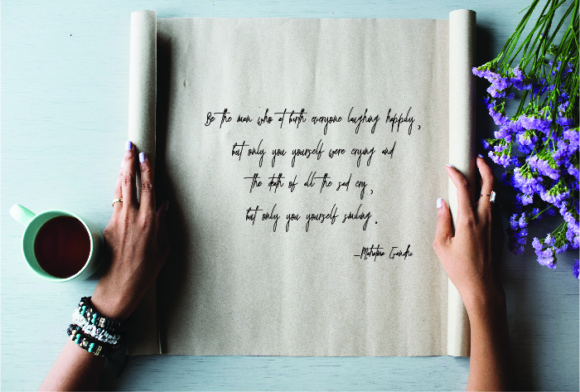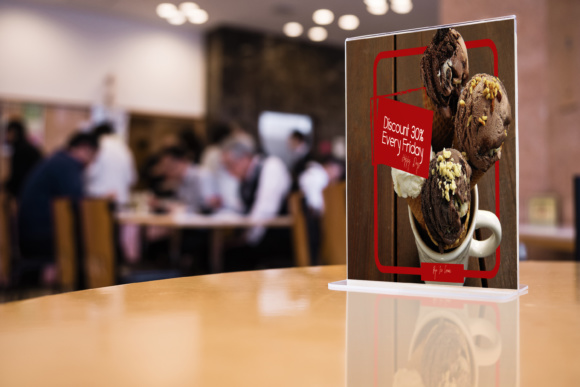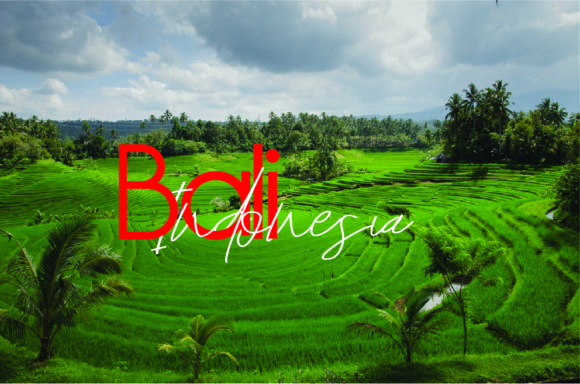
Futusicia Duo Font: Elevate Your Designs with this Stunning Font Combination
In the world of typography, a font duo can make or break a design. A well-curated combination of fonts can elevate your project from ordinary to extraordinary. Introducing the Futusicia Duo, a match made in heaven that pairs the elegance of Futusicia Script with the modernity of Futusicia Sans Serif. In this article, we’ll dive into the world of Futusicia Duo, exploring its features, benefits, and uses, perfect for designers and crafters looking to take their designs to the next level.
Meet the Futusicia Duo
The Futusicia Duo is a stunning font duo combining Futusicia Script, a stunning handwritten script, and Futusicia Sans Serif, a perfectly matching sans serif. This dynamic duo is designed to work in harmony, providing a cohesive look that’s perfect for a wide range of design projects, from branding and advertising to packaging and digital media.
Futusicia Script: The Elegant Handwritten Script
Futusicia Script is a beautiful, handwritten script font that’s perfect for adding a touch of elegance to your designs. With its flowing lines and cursive connections, this font exudes sophistication and refinement. Its elegant appearance makes it ideal for use in:
- Wedding and event invitations
Futusicia Sans Serif: The Perfectly Matching Font
Futusicia Sans Serif is a clean, modern sans serif font that’s designed to complement Futusicia Script perfectly. Its simple, geometric lines provide a beautiful contrast to the elegance of the script font, creating a harmonious balance that’s perfect for:
- Headings and titles
- Body text and descriptions
- Digital media and websites
- Print materials and brochures
Benefits of Using Futusicia Duo
So, why choose the Futusicia Duo for your design projects? Here are just a few benefits:
- Cohesive look: The Futusicia Duo provides a consistent visual identity, ensuring your designs look professional and polished.
- Versatility: With two fonts in one, you can use Futusicia Script for headings and Futusicia Sans Serif for body text, or vice versa.
- Elegance and modernity: The combination of a elegant script and modern sans serif font provides a perfect balance of sophistication and contemporary style.
- Time-saving: With the Futusicia Duo, you can create stunning designs quickly and easily, without having to search for matching fonts.
Tips for Using Futusicia Duo
To get the most out of the Futusicia Duo, here are a few tips:
- Use Futusicia Script for headings: Take advantage of the script font’s elegance and use it for headings, titles, and emphasis text.
- Pair with images: Combine Futusicia Duo with high-quality images to create visually stunning designs.
- Experiment with colors: Try out different color combinations to find the perfect match for your brand or design.
- Mix and match: Don’t be afraid to mix and match Futusicia Script and Futusicia Sans Serif to create a unique look.
The Futusicia Duo is a game-changing font combination that’s perfect for designers and crafters looking to elevate their designs. With its elegant handwritten script and modern sans serif font, this duo provides a cohesive look that’s sure to impress. Whether you’re working on a branding project, creating packaging, or designing for digital media, the Futusicia Duo is the perfect choice. So why wait? Download the Futusicia Duo today and take your designs to the next level!